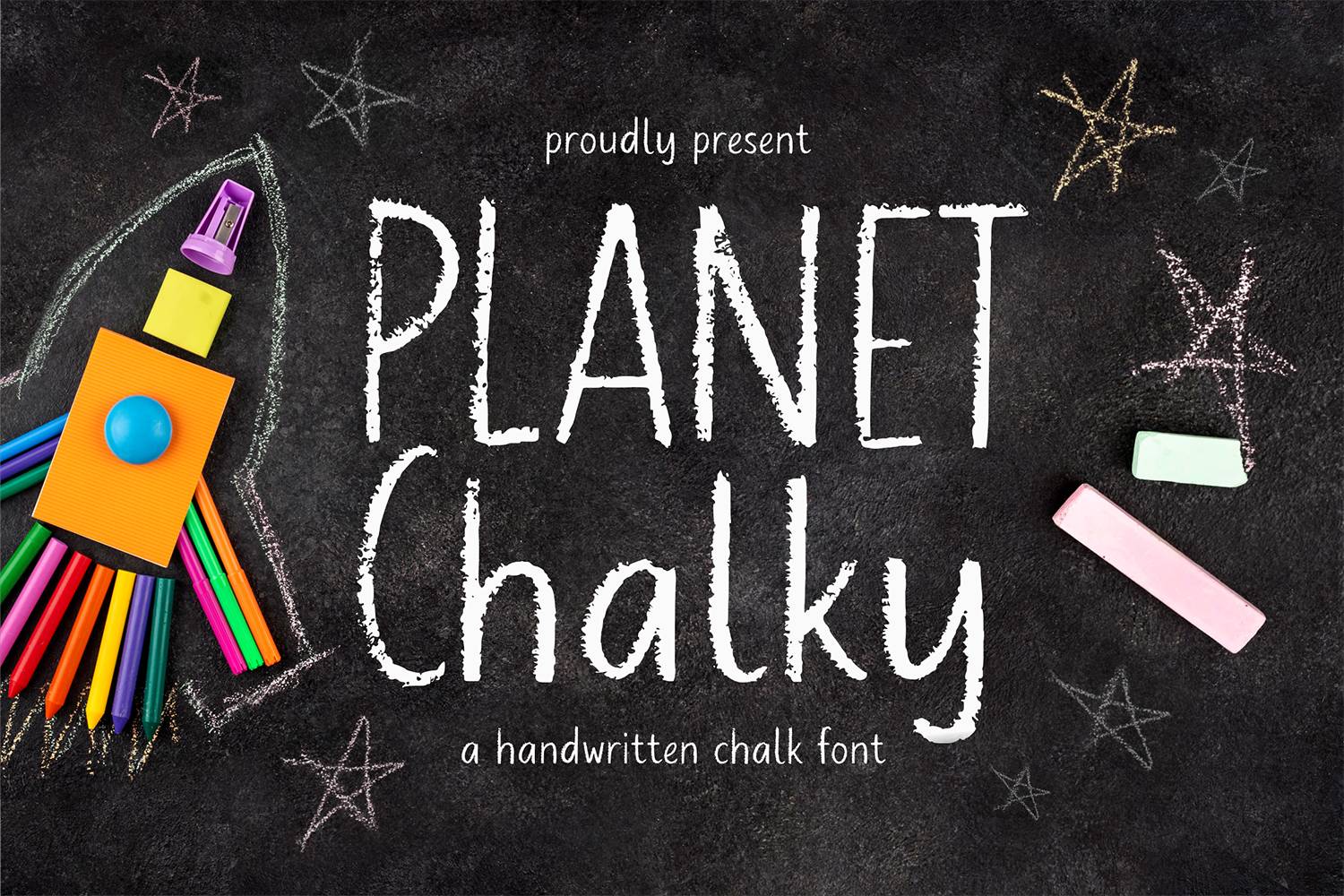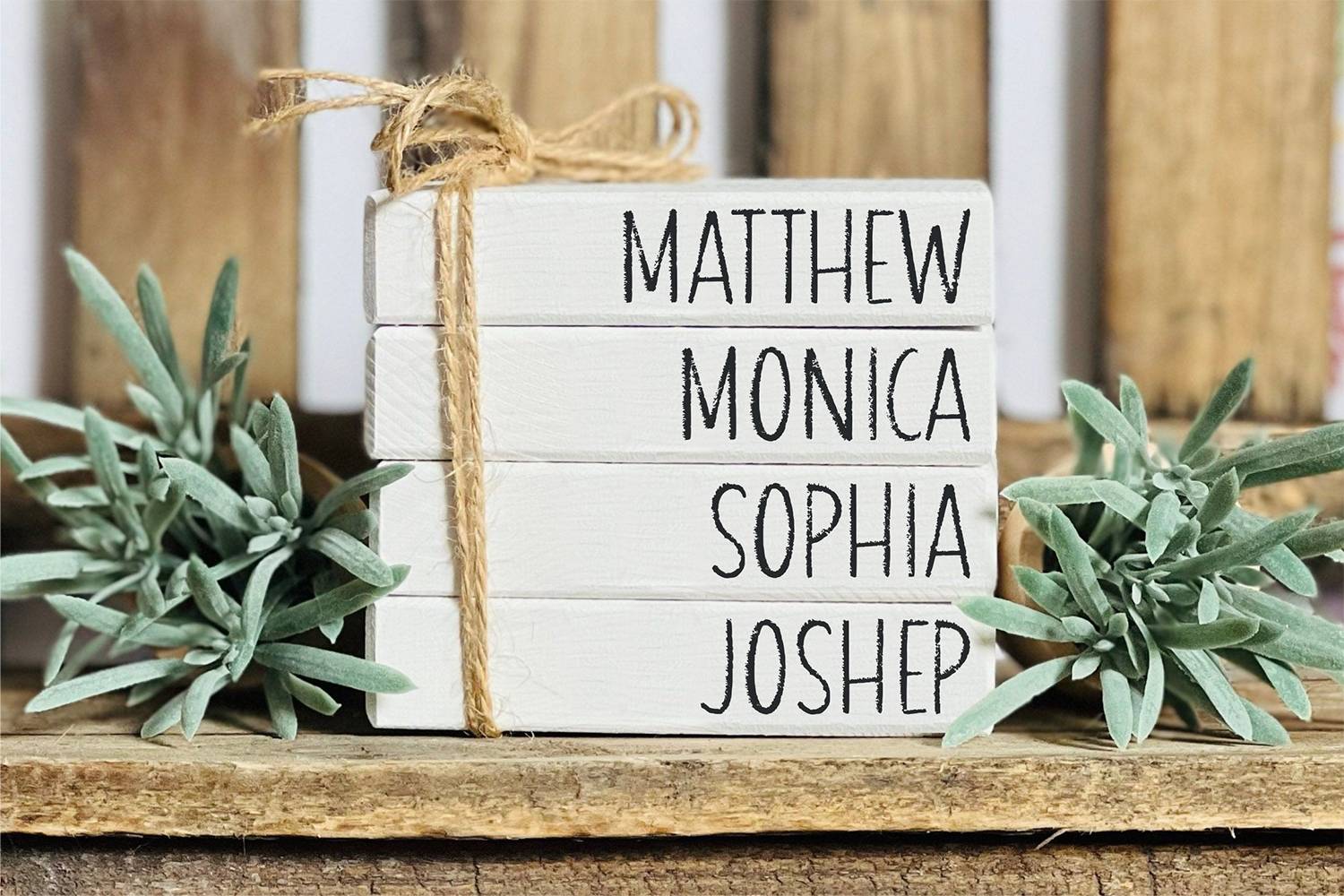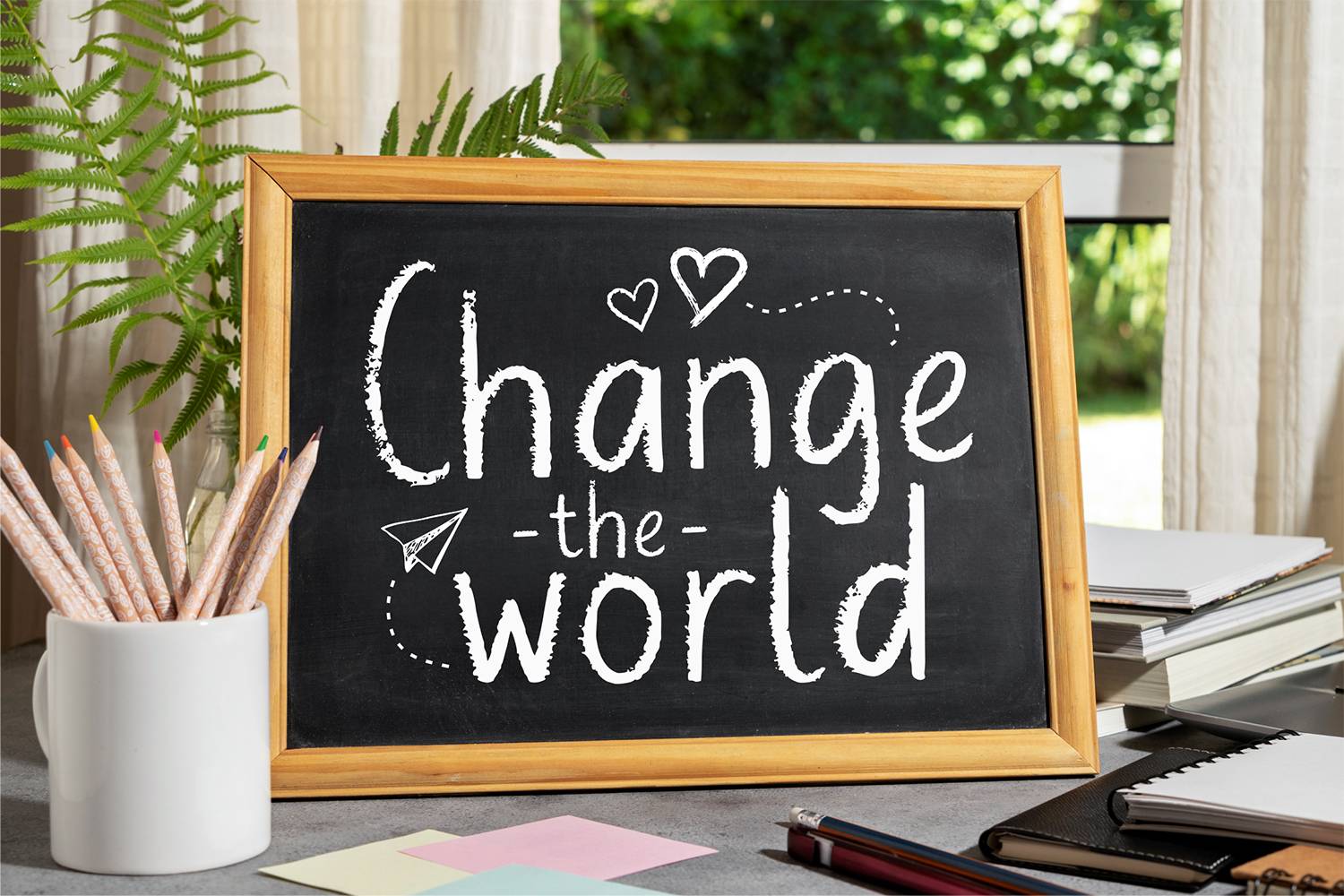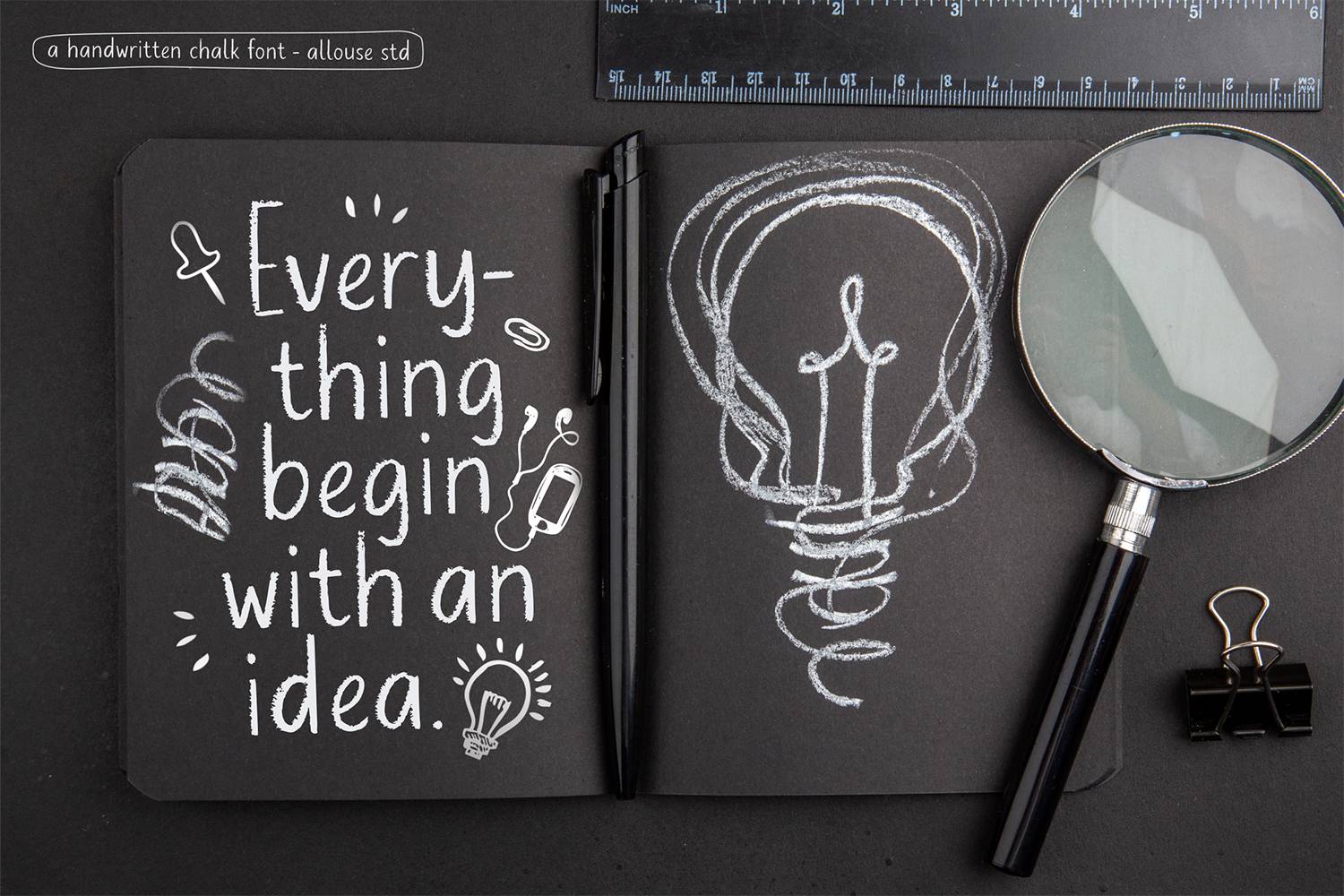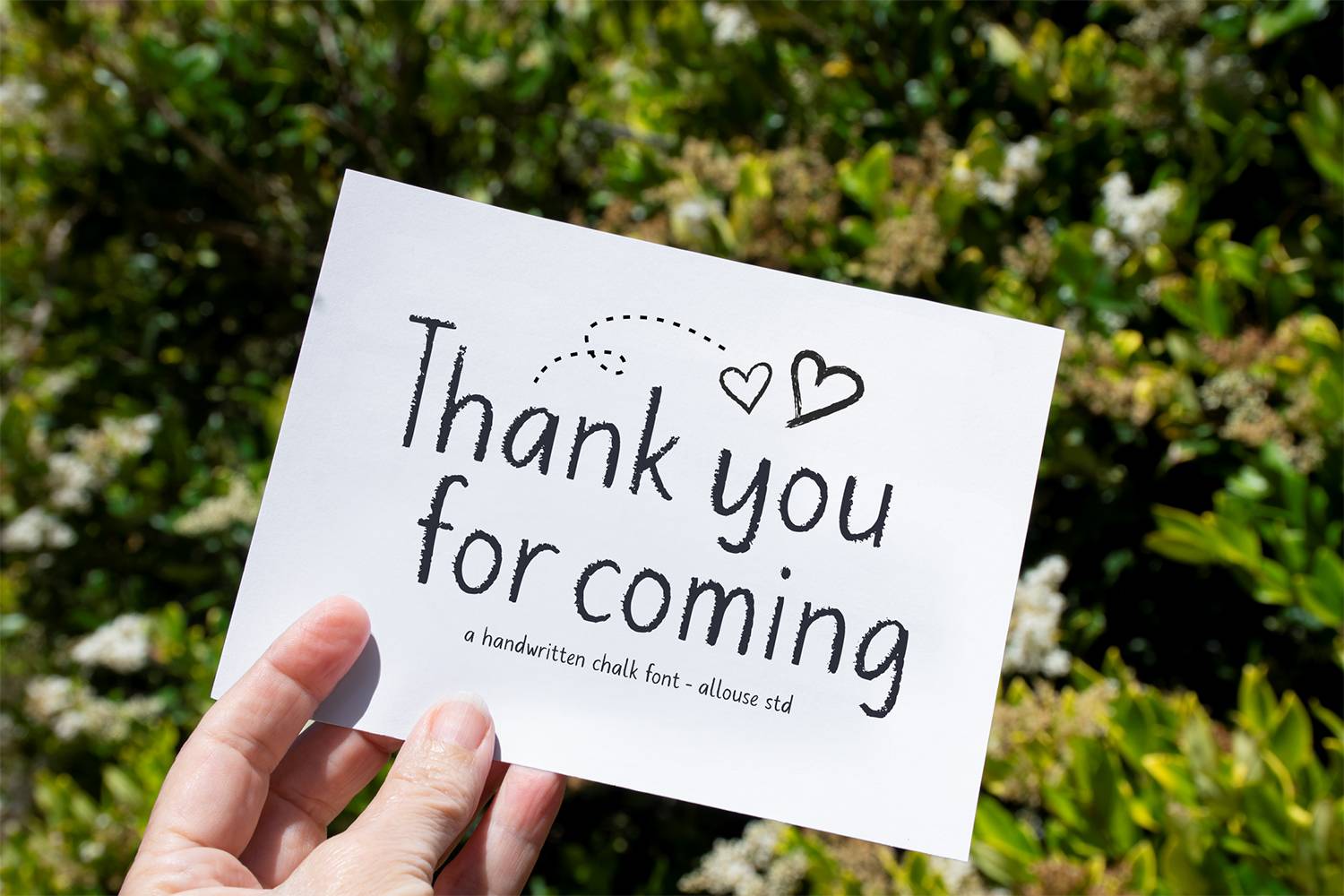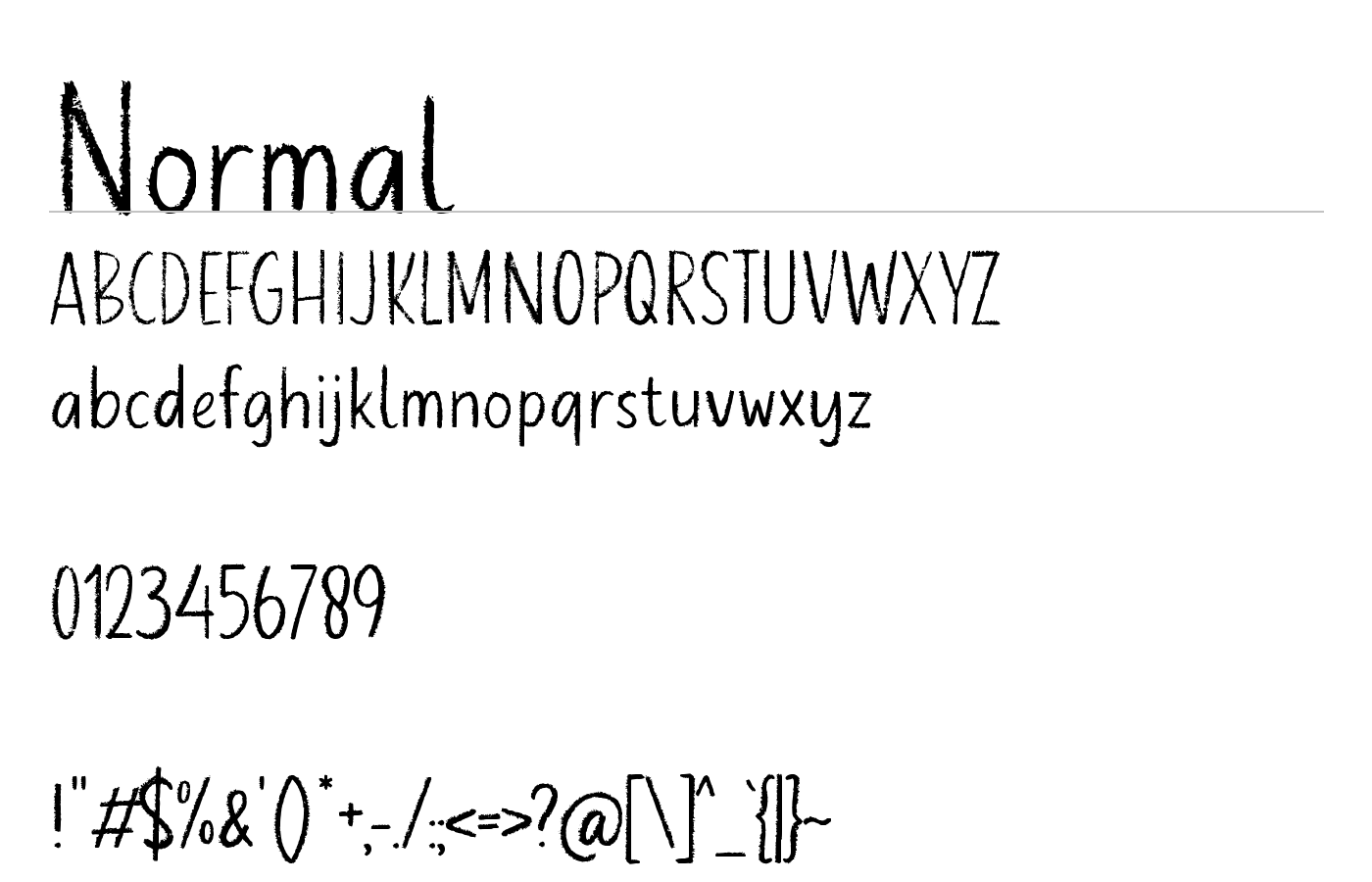
Planet Chalky is a playful, hand-drawn sans serif font with a chalk-like texture that gives it a casual, artistic feel. Its irregular strokes and narrow letterforms make it great for creative projects, such as posters, children’s materials, and informal branding, where a friendly and approachable look is desired. This font’s whimsical style adds personality and charm, making it ideal for designs that want to convey creativity and a relaxed vibe.
Planet Chalky Font
About Planet Chalky Font